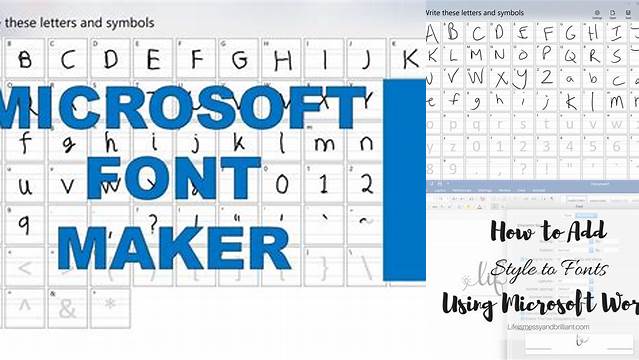
Create Your Own Font In Word For Free: A Step-by-Step Guide
Creating unique fonts can add a personal touch to your documents, presentations, and other projects. While Microsoft Word doesn't have a built-in font editor, there are several free and easy-to-use methods to craft your own font for Word. This comprehensive guide will walk you through the steps, ensuring you can express your creativity through custom typography.
Understanding Font Creation
Before diving into the process, it's important to understand the basics of font creation. A font is essentially a set of characters (letters, numbers, symbols) designed with a consistent style. Each character is a glyph, and the overall design of these glyphs determines the font's appearance. Creating a font involves designing each glyph and then compiling them into a font file that can be installed on your computer and used in applications like Microsoft Word.
Font creation can be approached in a couple of ways. You can either create a completely new font from scratch, designing each character individually, or you can modify an existing font to better suit your needs. Modifying existing fonts can be a simpler approach, especially for beginners, as it provides a foundation to work from. However, it's crucial to be aware of copyright issues when modifying fonts. Always ensure you have the necessary permissions or licenses to alter and use a font commercially.
There are various software tools available for font creation, ranging from professional-grade applications like FontLab Studio to free, user-friendly options. For the purpose of this guide, we'll focus on methods that utilize free software and tools, making font creation accessible to everyone. These tools often provide a range of features, including drawing tools, glyph editing capabilities, and the ability to import and export font files in various formats.
When designing your font, consider the overall style you want to achieve. Are you aiming for a classic, elegant look, a modern, minimalist feel, or something more whimsical and playful? Think about the intended use of the font. Will it be used for headings, body text, or both? The answers to these questions will guide your design decisions and help you create a font that is both visually appealing and functional. Remember, consistency is key. Ensure that your glyphs share common design elements and maintain a cohesive look throughout the font.
Method 1: Using Online Font Editors
One of the easiest ways to make your own font for free is by using online font editors. These web-based tools offer a user-friendly interface and a variety of features to design and customize fonts without the need to download any software. Several excellent online font editors are available, each with its own unique set of capabilities. Some popular options include Calligraphr, FontStruct, and BirdFont. Let's explore how to use one of these tools, Calligraphr, to create a font.
Calligraphr is a fantastic online tool that allows you to create a font from your own handwriting or drawings. The process involves downloading a template, filling it in with your desired characters, and then uploading it back to Calligraphr. The tool then converts your handwriting into a usable font file that you can download and install on your computer. Here's a step-by-step guide:
- Download the Template: Once you're logged in, click on the "Template" tab. Here, you can customize the template to include the characters you want in your font. You can choose from different character sets, such as basic Latin, extended Latin, numbers, symbols, and more. Customize the settings to your needs and then download the template as a PDF file.
- Fill in the Template: Print the downloaded PDF template. Using a pen or marker, carefully fill in each box with the character you want to create. Try to maintain a consistent style and size for each character to ensure a cohesive font design. You can also use a graphics tablet to draw directly onto the template if you prefer a digital approach.
- Upload the Template: Once you've filled in the template, scan it or take a clear photo of it. Upload the image file to Calligraphr by clicking on the "My Fonts" tab and then selecting "Upload Template." Calligraphr will automatically recognize the characters in your template.
- Generate Your Font: After uploading the template, you can preview your font and make any necessary adjustments. Calligraphr allows you to edit individual characters, adjust spacing, and fine-tune the overall appearance of your font. Once you're satisfied with the result, click on the "Build Font" button to generate your font file.
Creating your own font for Microsoft Word is a fantastic way to add a personal touch to your documents and express your creativity. Whether you choose to use an online font editor, font software, or modify an existing font, the process is accessible to anyone with a bit of patience and effort. By following the steps outlined in this guide, you can design your own fonts that reflect your unique style and enhance your projects. So go ahead, unleash your inner typographer and make your own font today!